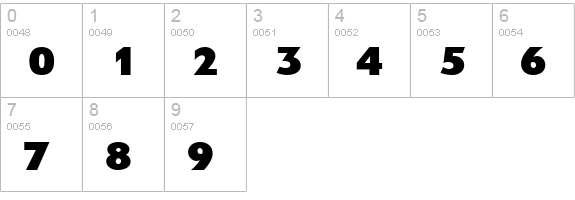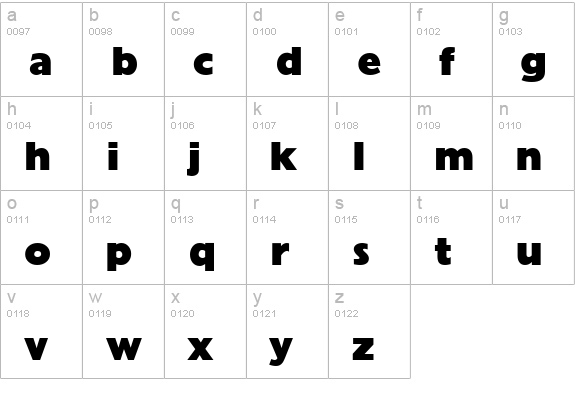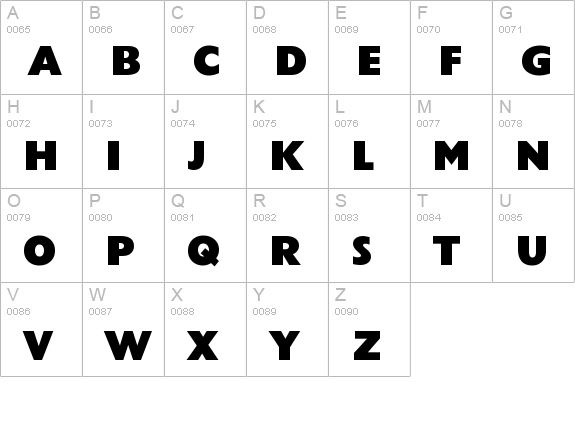
Grandeur-Regular is the standard, neutral variant in the Grandeur typeface family \xE2\x80\x94 well suited to general body text, paragraphs, and standard typographic work.
Grandeur-Regular is a sophisticated and elegant font that exudes timeless grandeur and class. With its clean lines and graceful curves, this font is perfect for adding a touch of luxury to any design project. Whether you're creating invitations, branding materials, or editorial layouts, Grandeur-Regular is sure to make a statement. This stunning font is available for free download at FontsMarket.com, making it easily accessible to designers looking to elevate their work with a touch of opulence. Don't miss out on the opportunity to add a touch of grandeur to your designs with Grandeur-Regular.